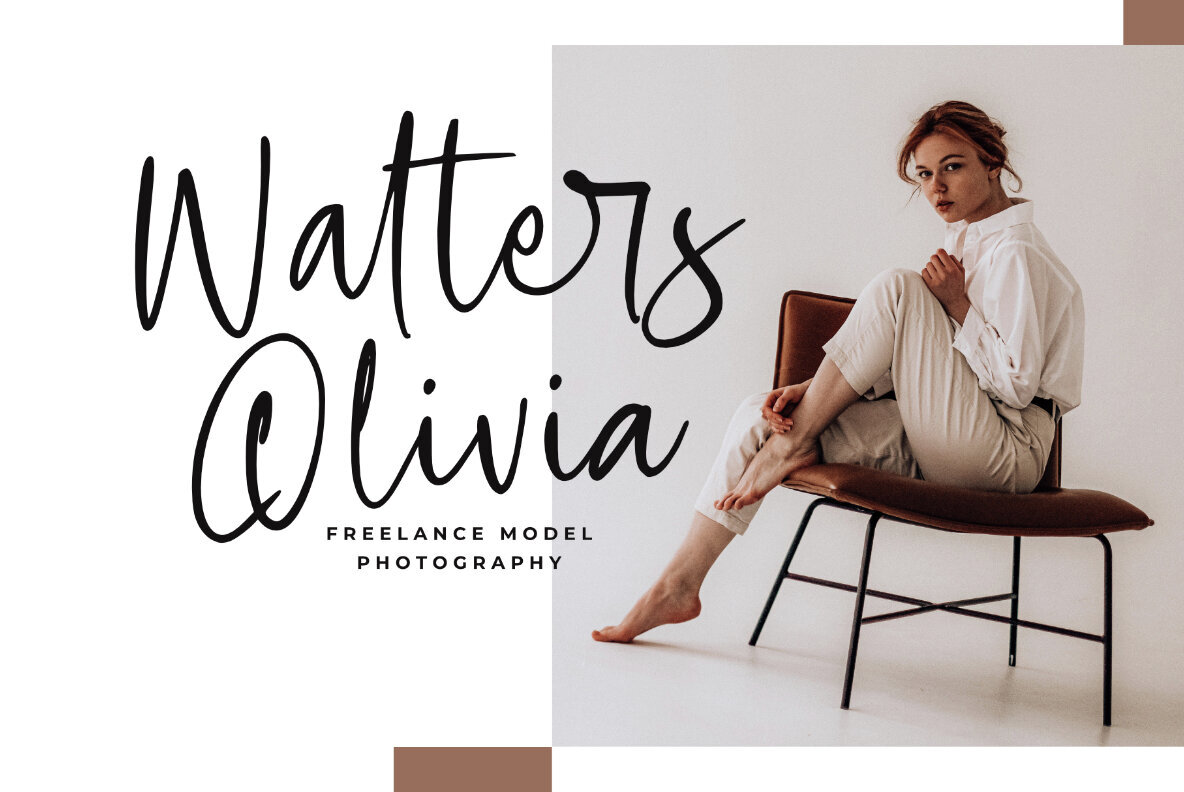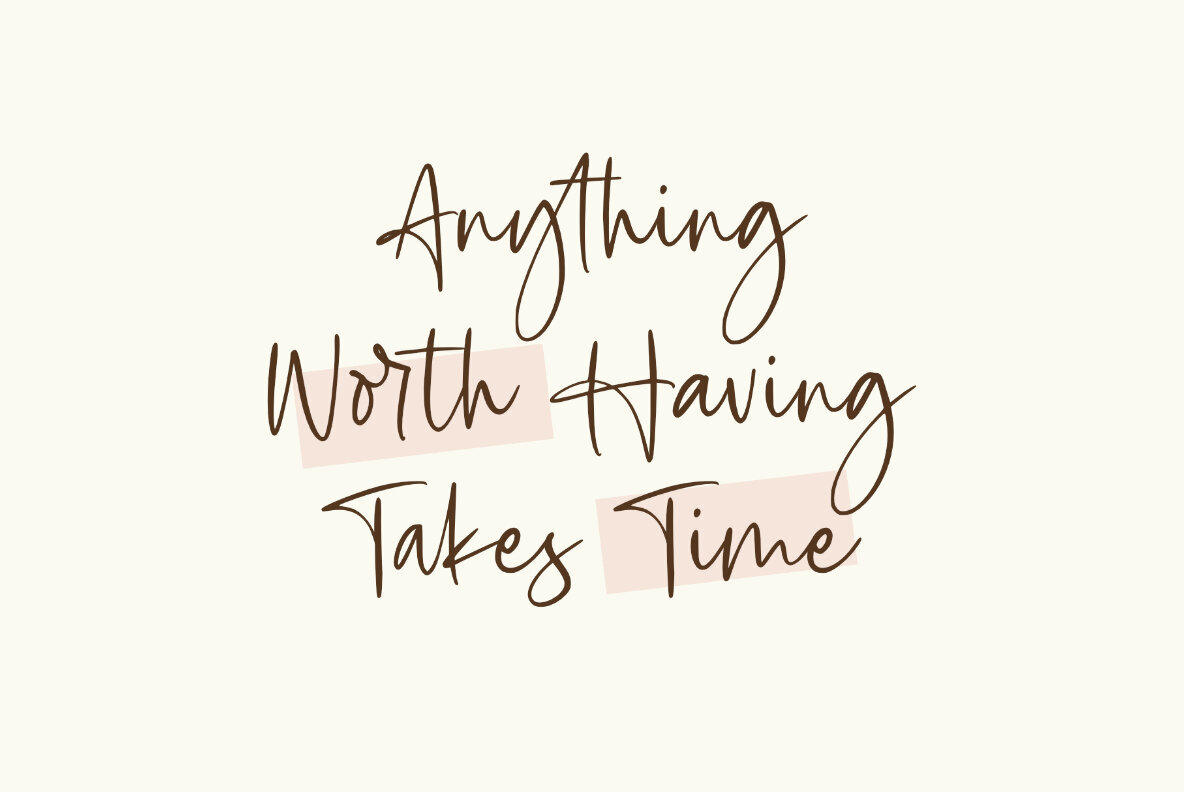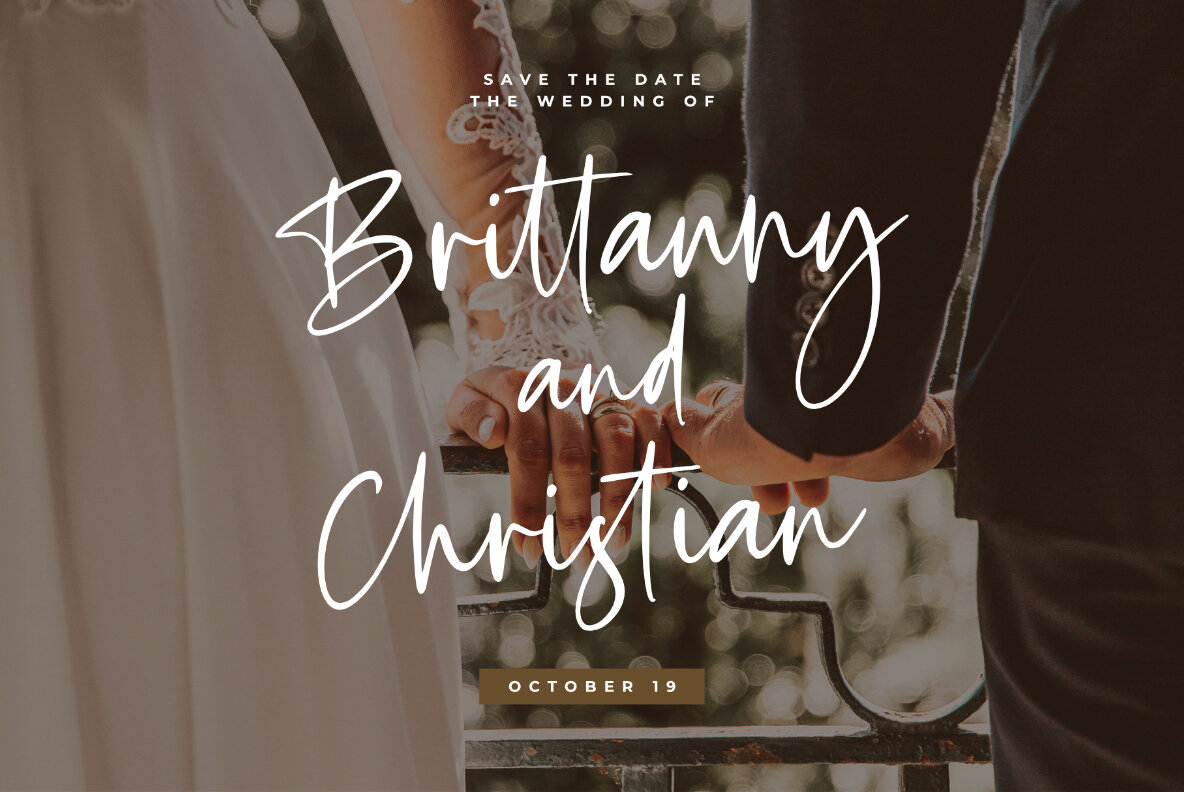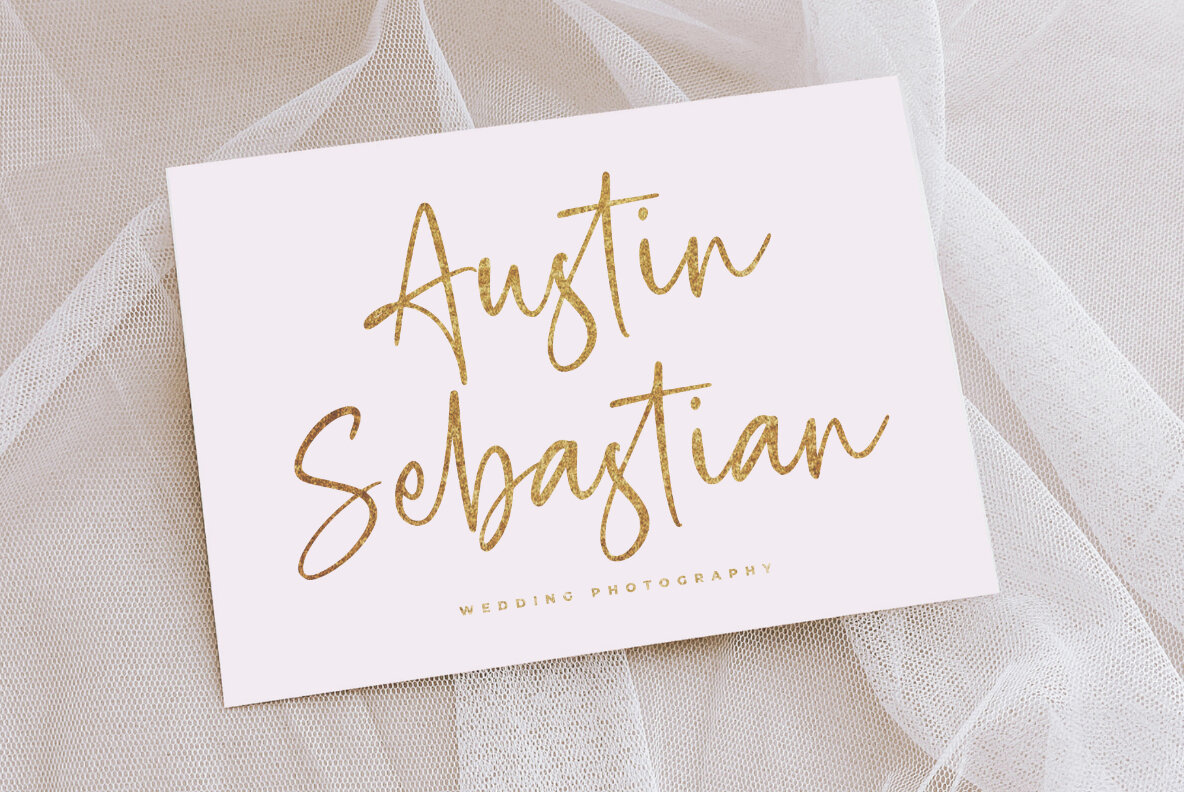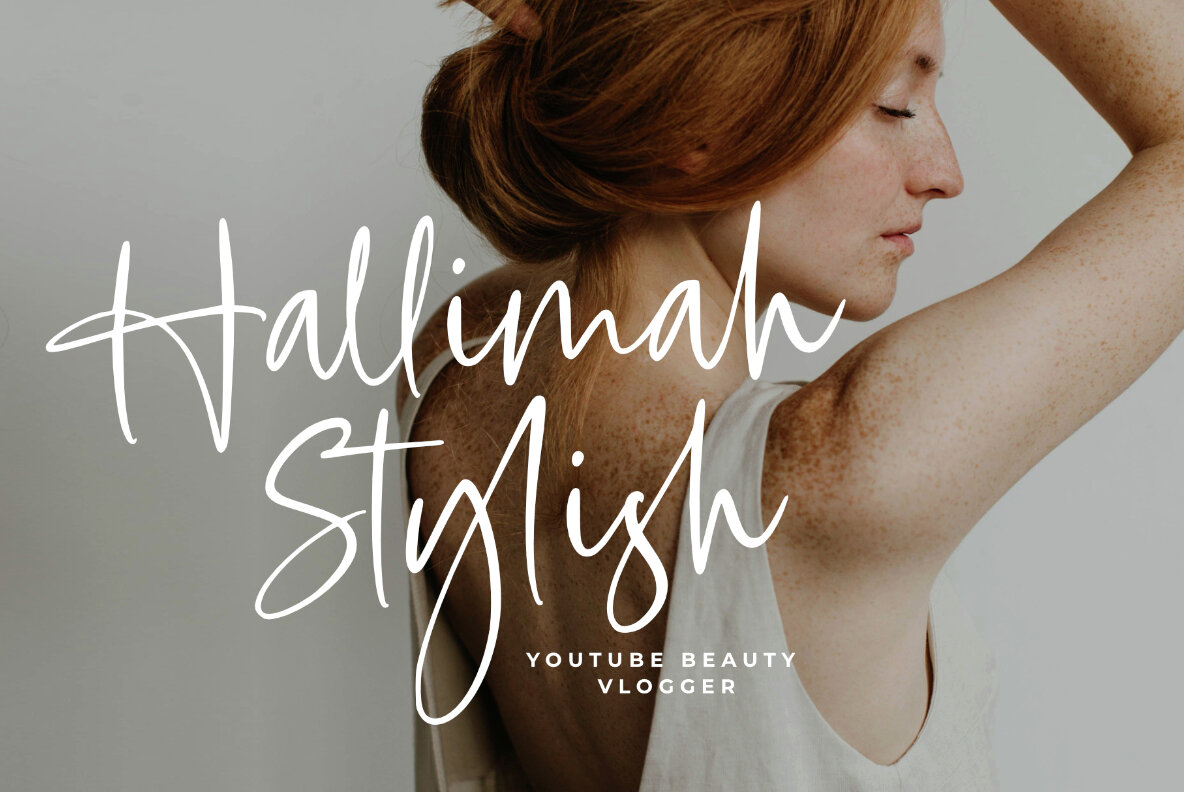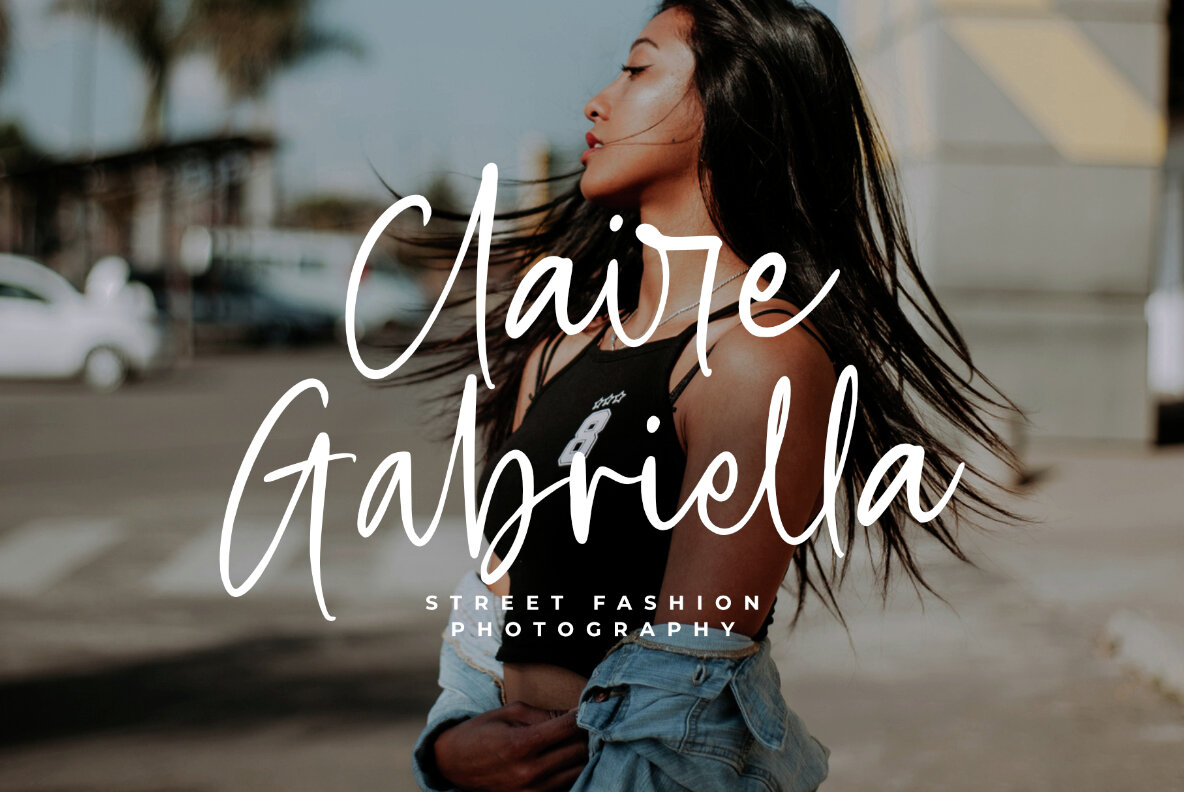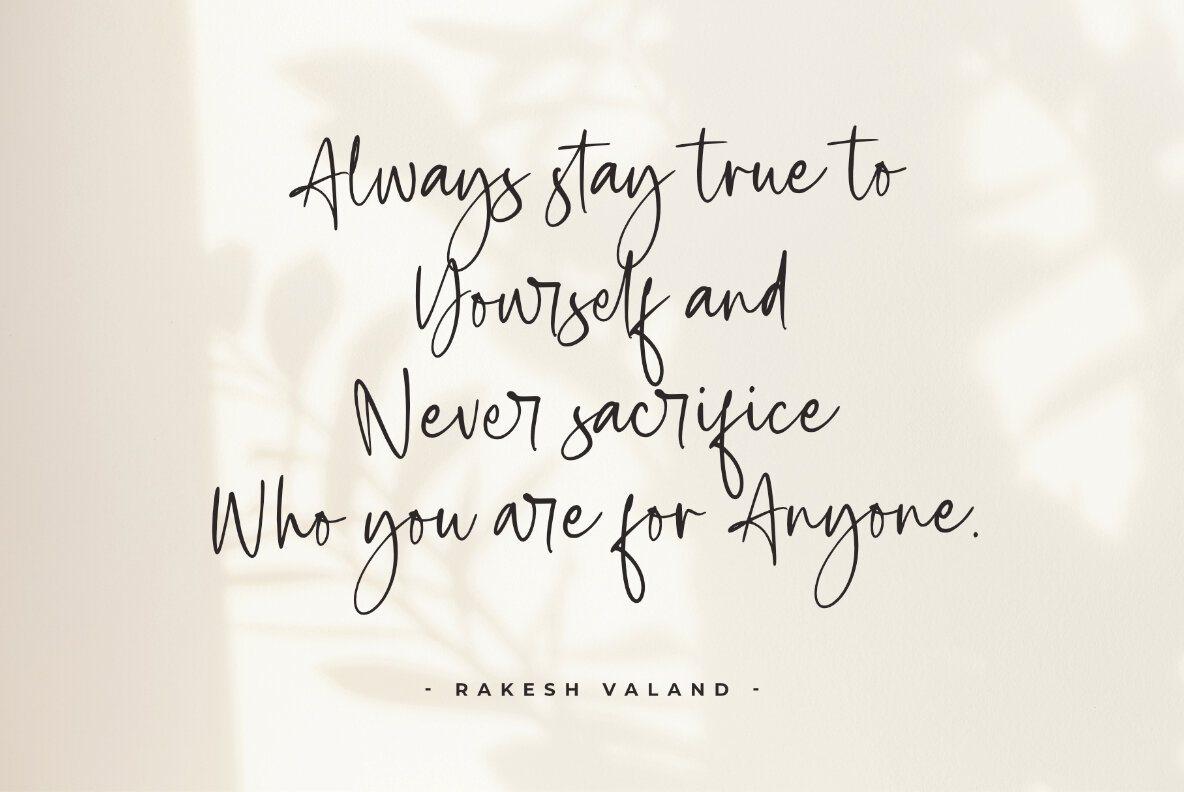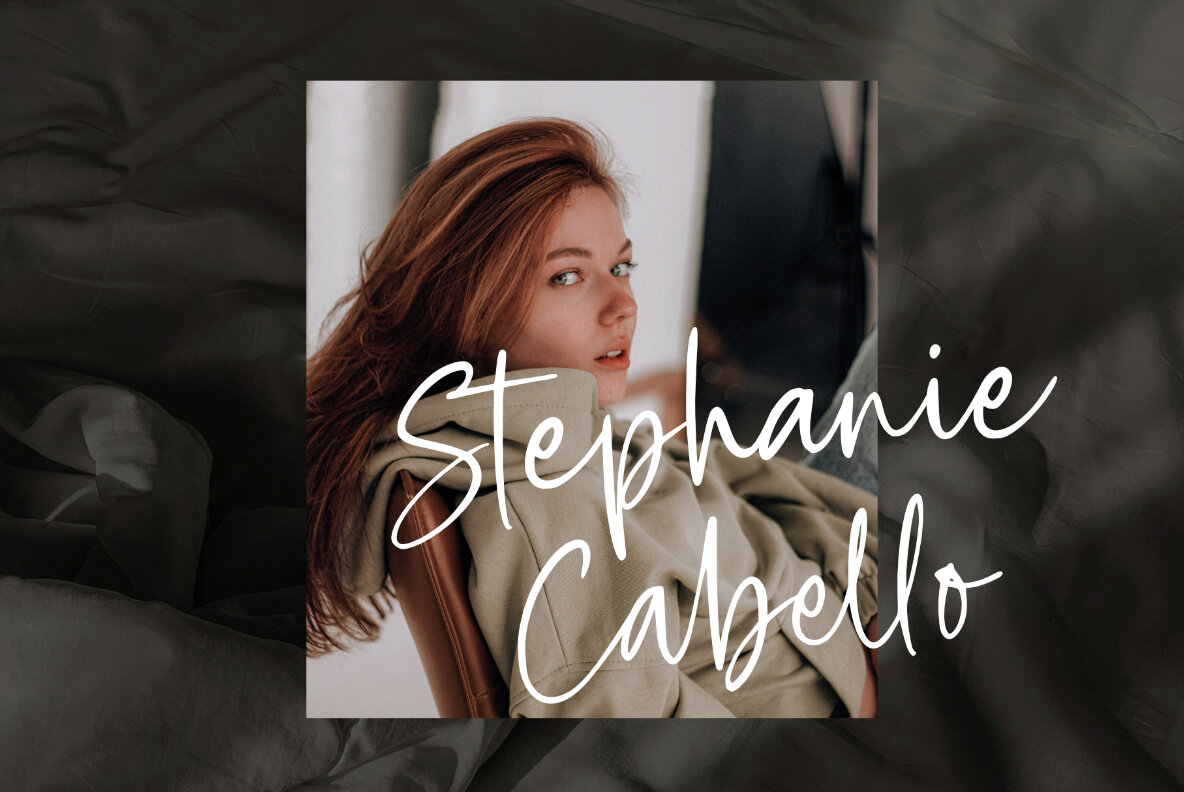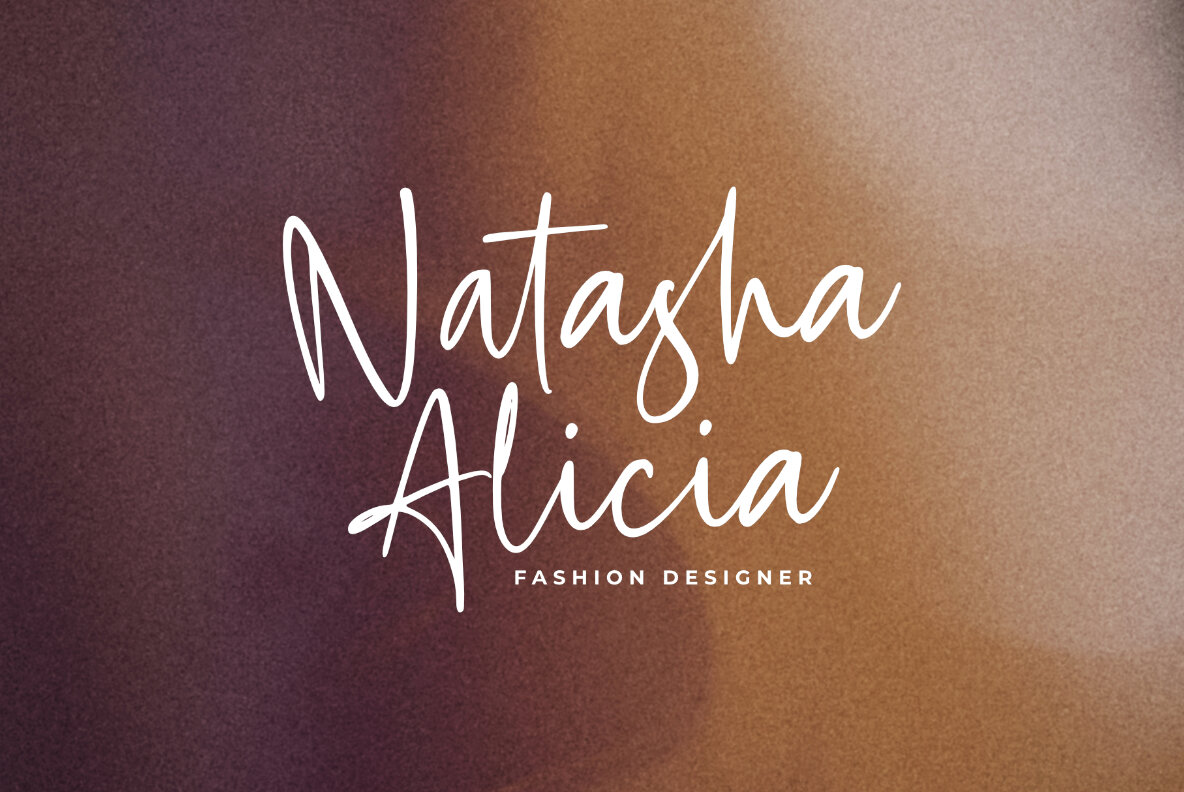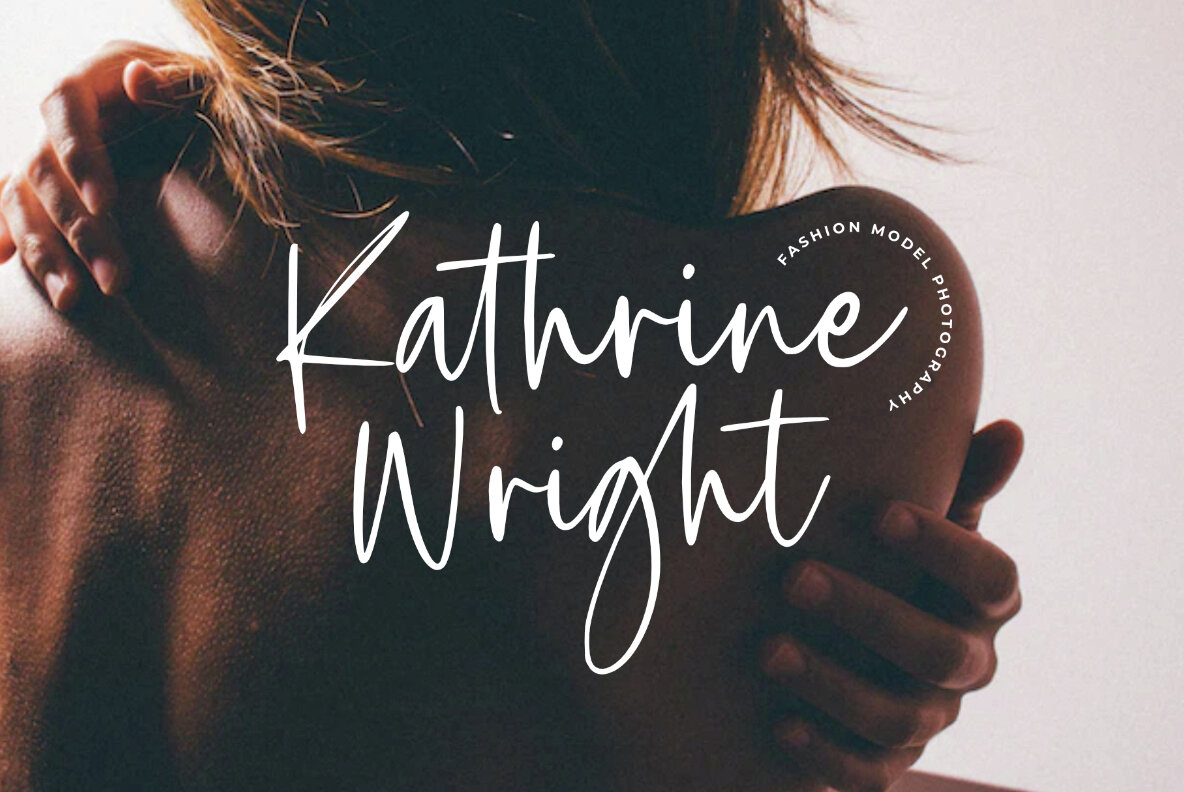
Gellatick Font
Gellatick Regular
Gellatick is a charming and whimsical script font that brings a delightful handwritten feel to any design. With its playful curves and bouncy letterforms, this font is perfect for adding a touch of joy and friendliness to your projects. Whether you're designing greeting cards, invitations, or social media graphics, Gellatick will infuse your creations with a sense of warmth and personality. The font's smooth and flowing strokes create a sense of effortless elegance, making it ideal for logos, branding, and product packaging that seeks to stand out with a touch of creativity. Gellatick's versatility also shines in crafting headlines and titles, bringing attention to your messages in a visually appealing way. Embrace the joyful spirit of Gellatick script font and watch your designs come to life with a captivating and friendly touch.